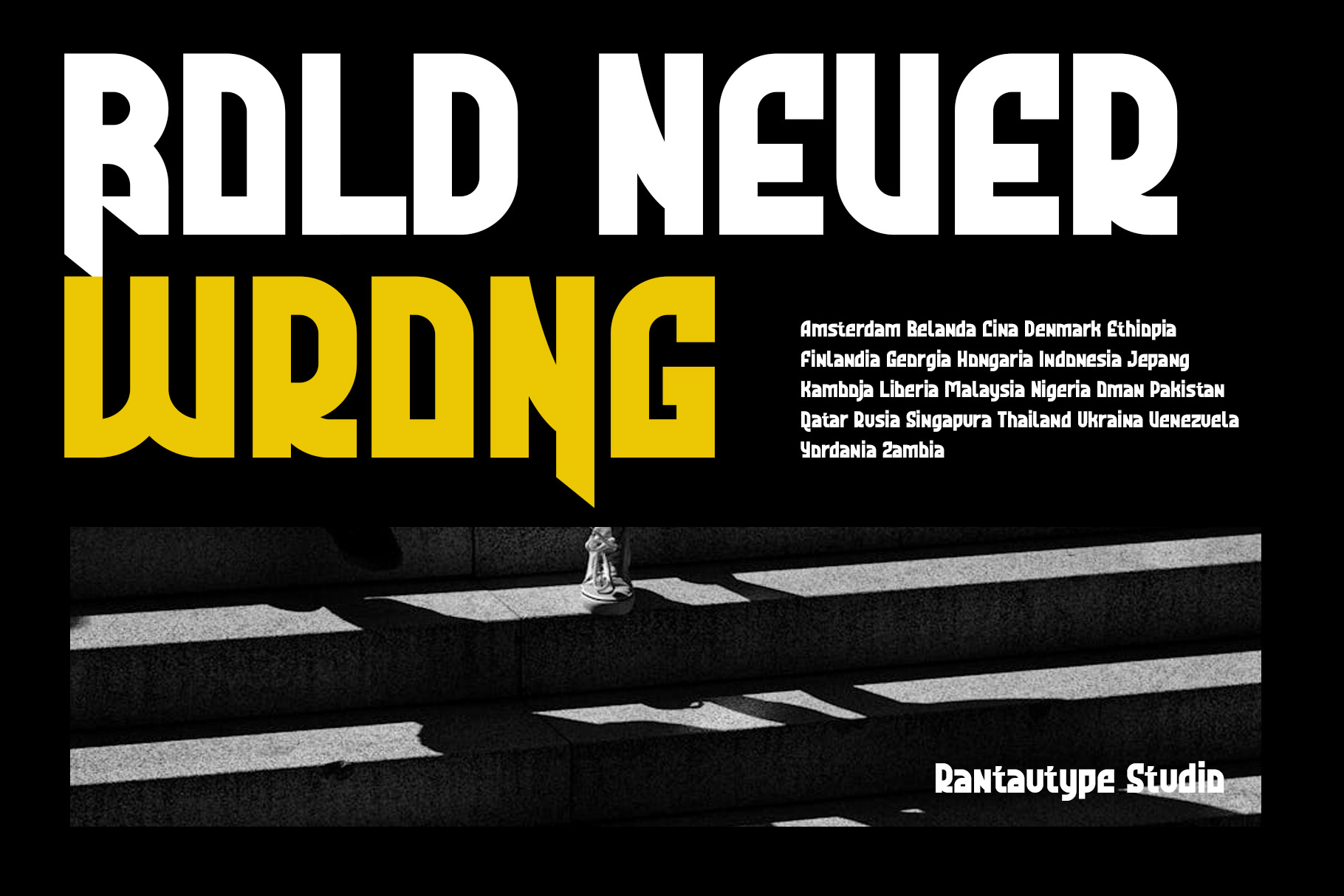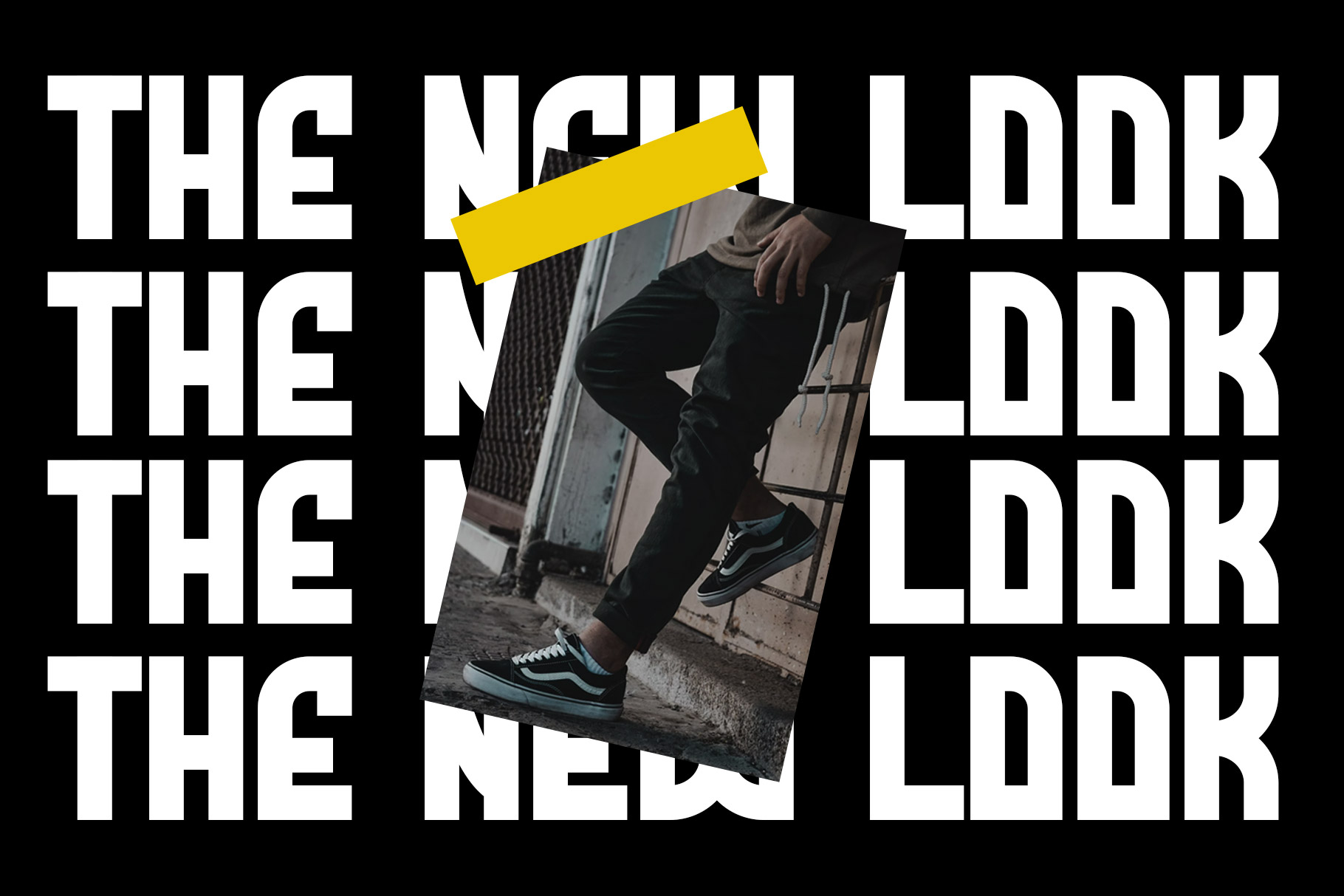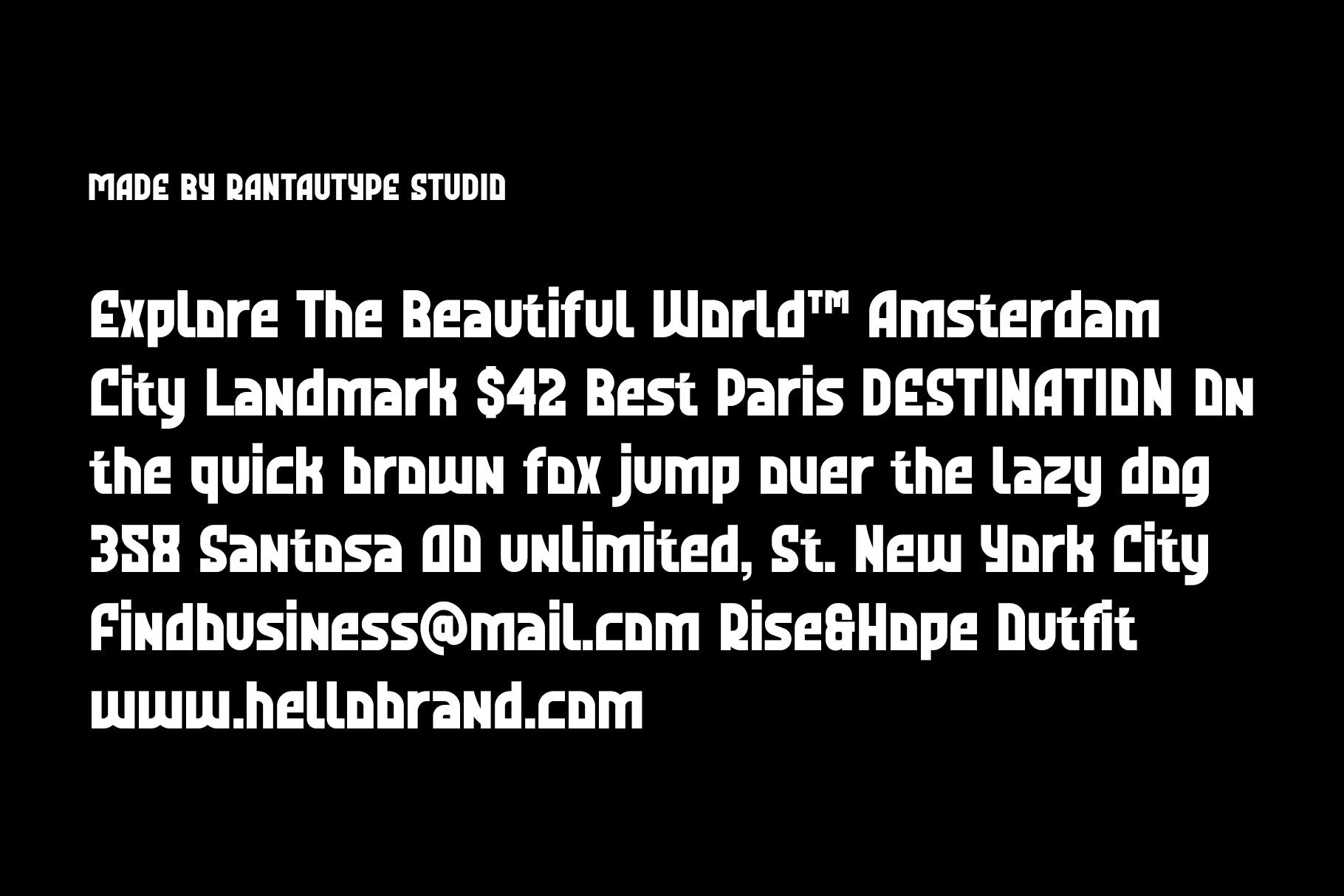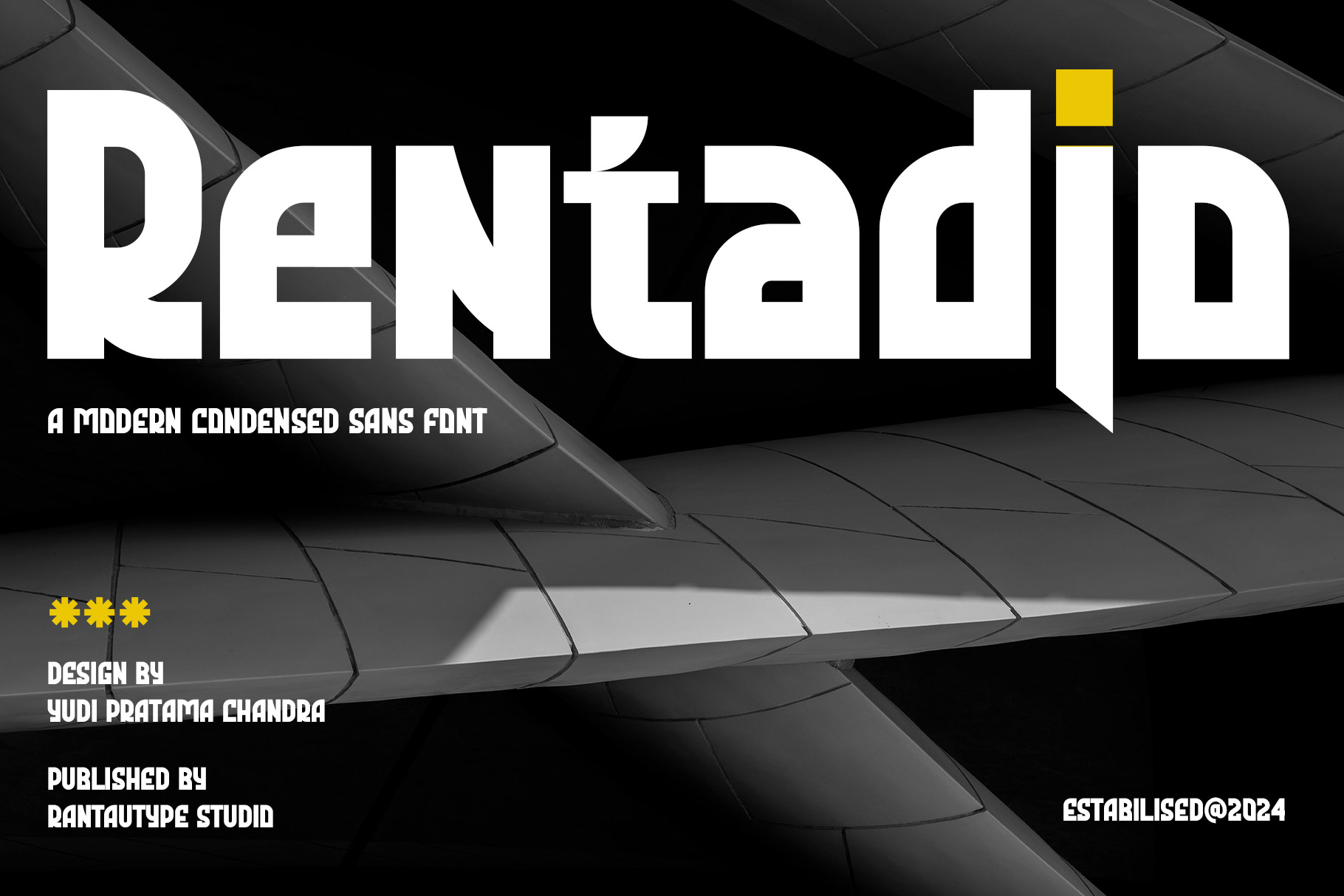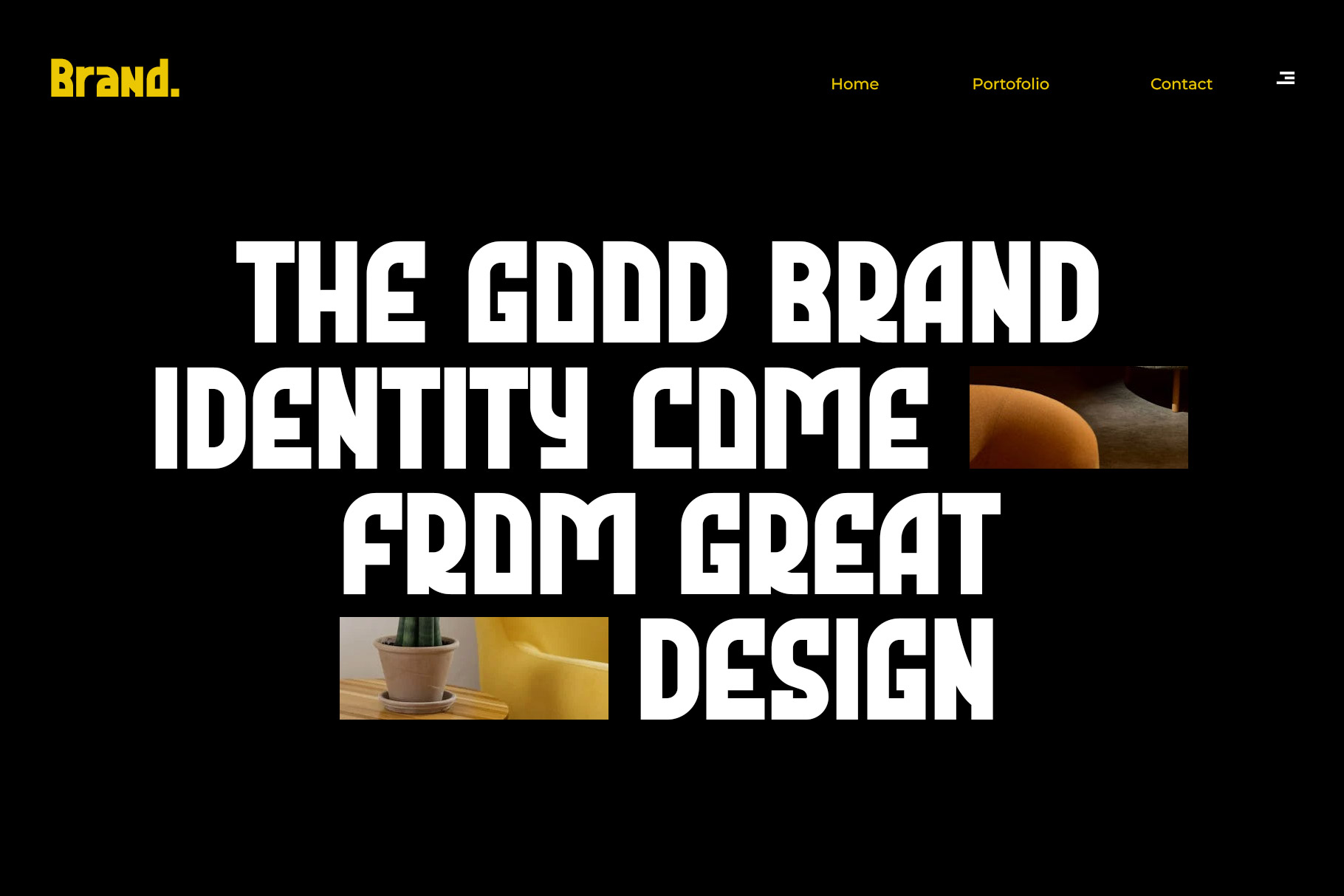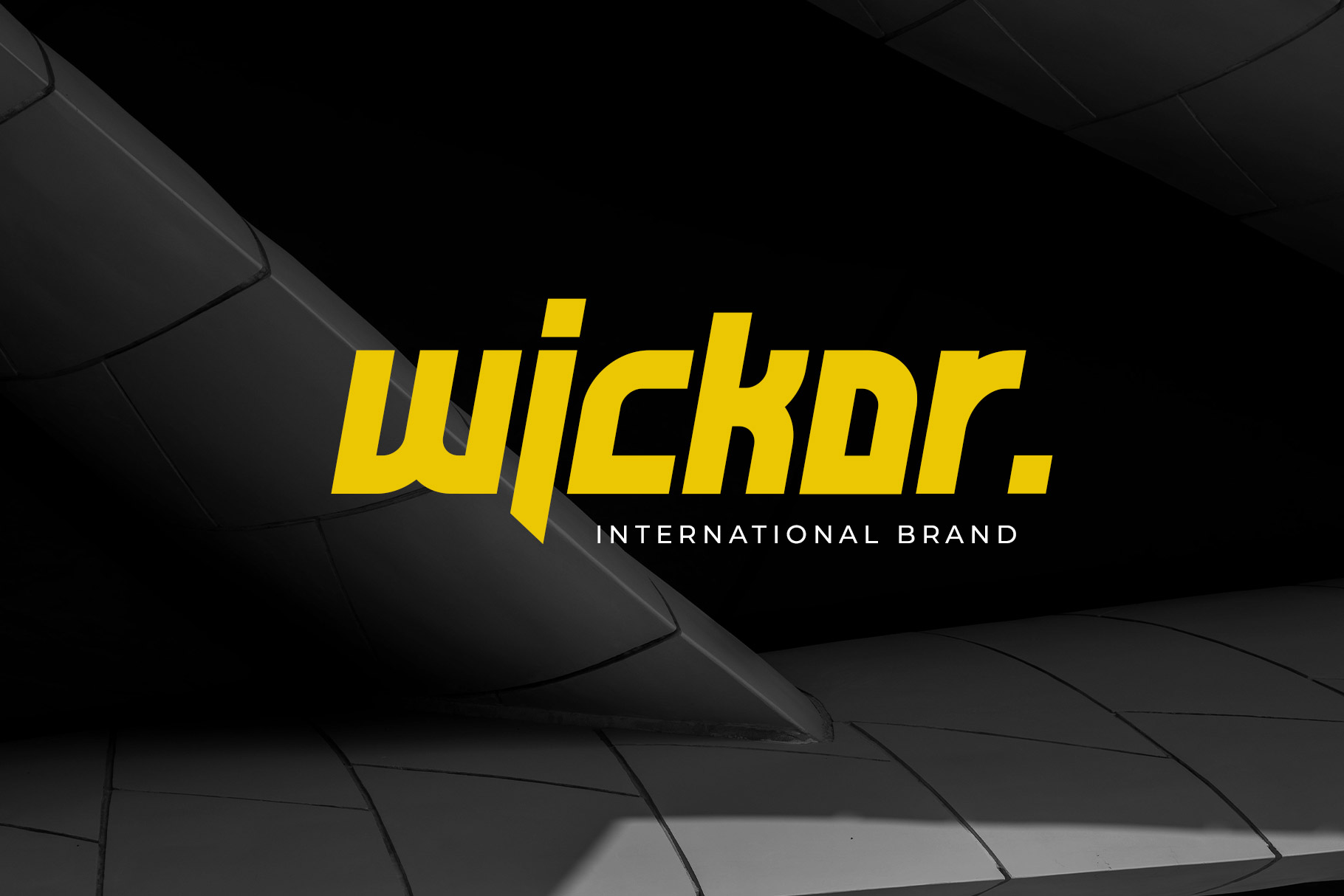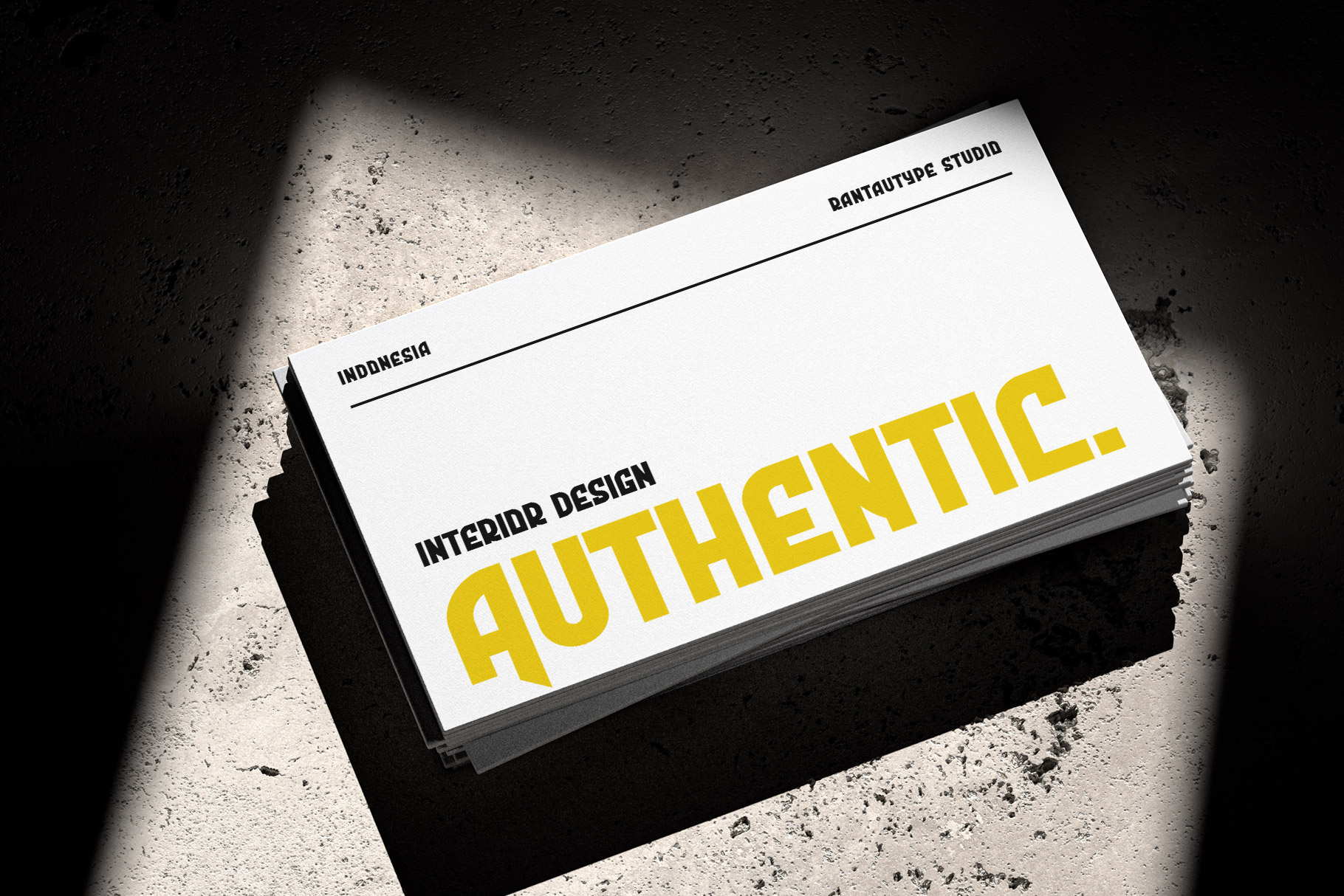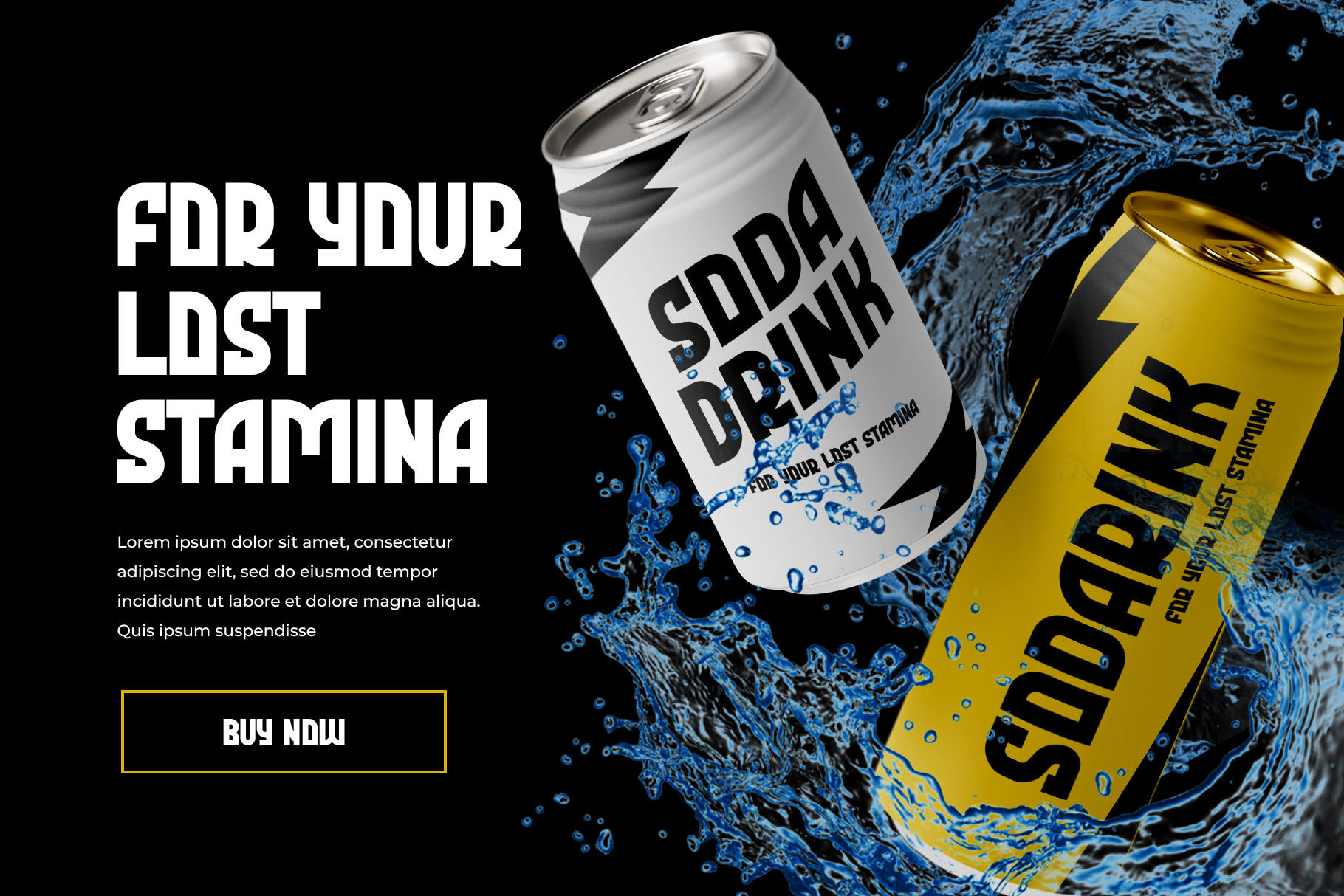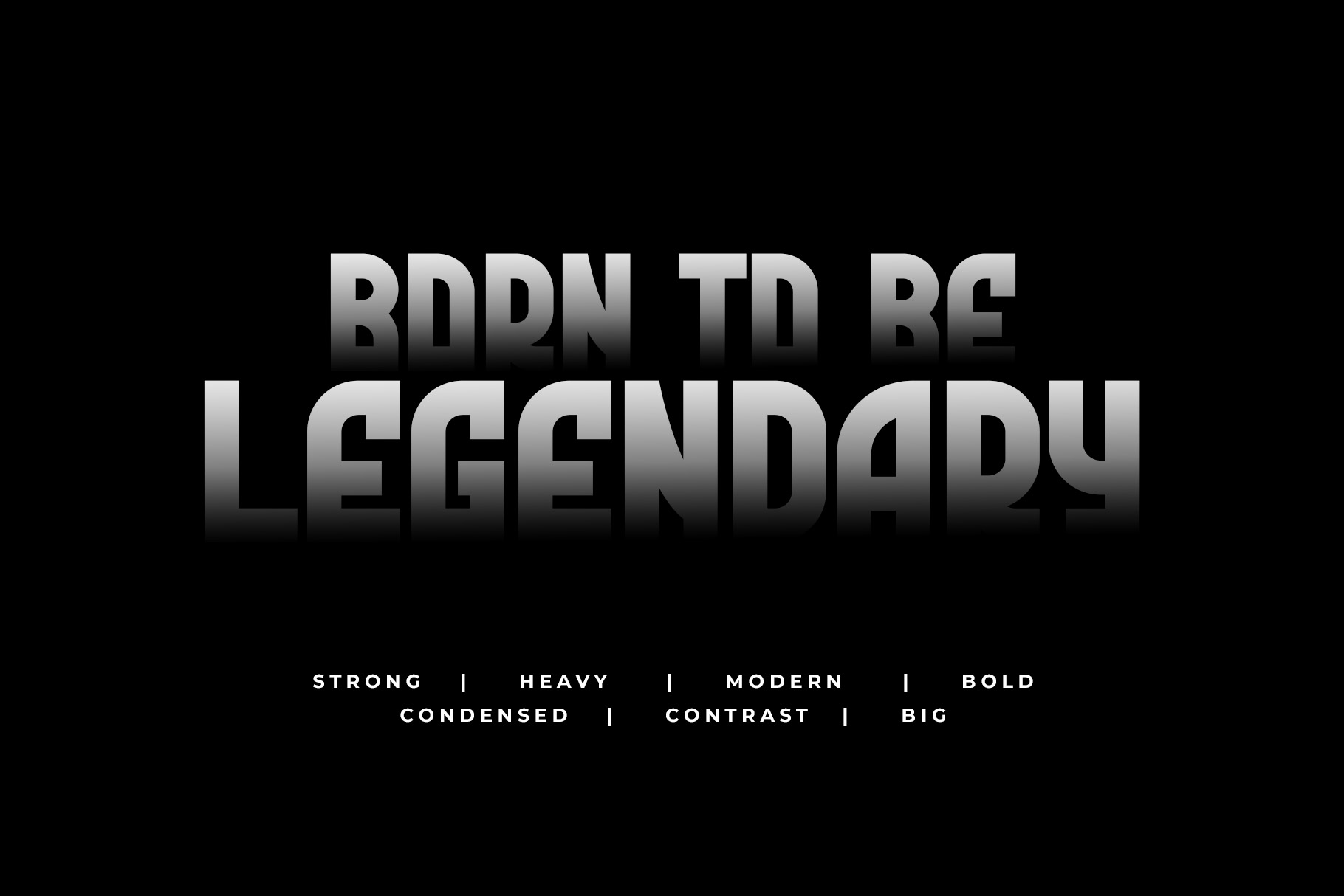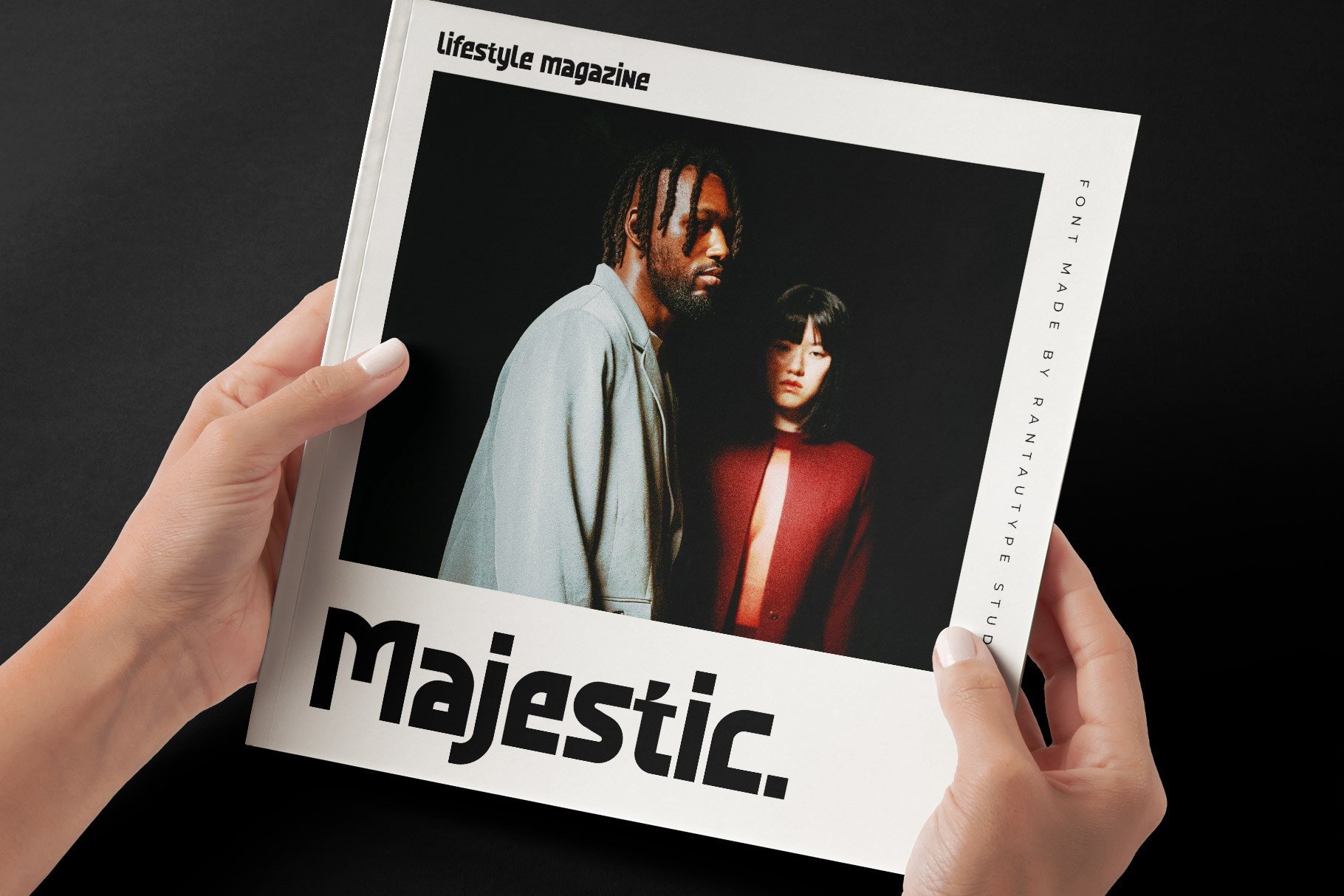
Rentadio Modern Condensed Sans Font
Rentadio is modern condensed sans serif font with strong geometry shape. Rentadio is a perfectly choice for any creative endeavor, chic, lifestyle design such as logotype, advertisements, watermark on photography, stationery, branding project, display and magazine, invitation, corporate brand, product design, label, business project and many other project with modern touch.